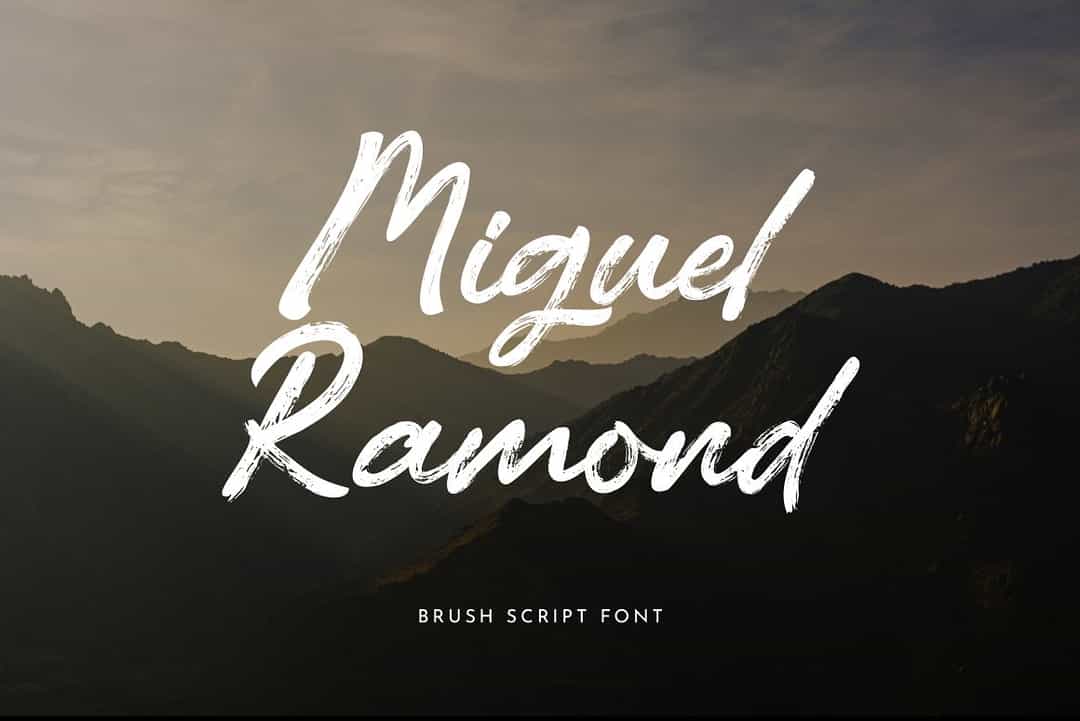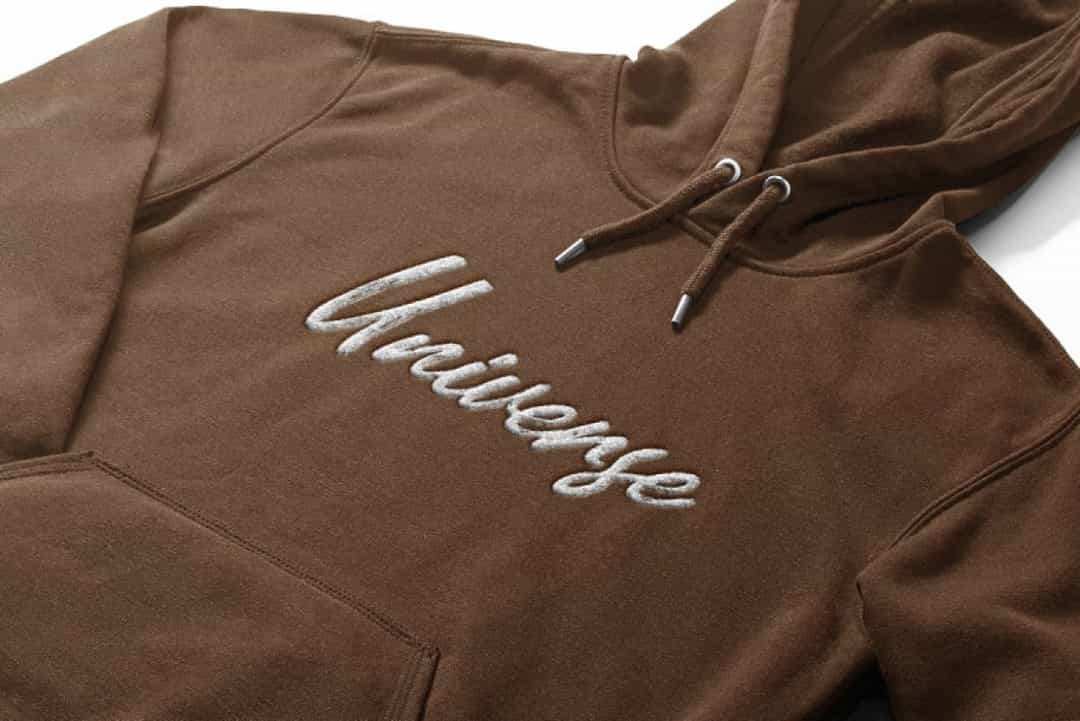
Discover Miguel Ramond Font, part of the Brush collection—a versatile and unique font perfect for adding a personal touch to your projects. Download it for free and enjoy crafting designs with style, from invitations to social media posts. This font is available exclusively for personal use, giving you the freedom to create without limits. Unlock your creativity with Miguel Ramond Font today!
Miguel Ramond Brush Font This set of scripts can serve as an effective personal marketing tool. Initially designed for personal brand promotion, its versatility makes it suitable for use across a range of situations – personal branding to names, logos, handwritten quotes packaging products or items social media greeting cards and greeting cards advertising photography and signature fonts alike can reap considerable benefit from its bold fonts for signatures.